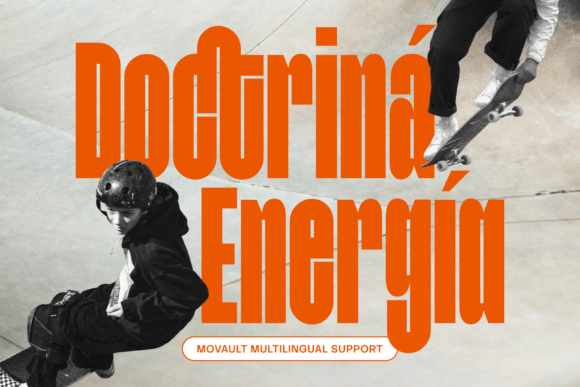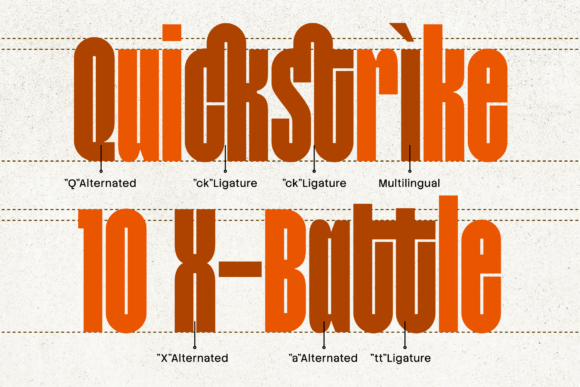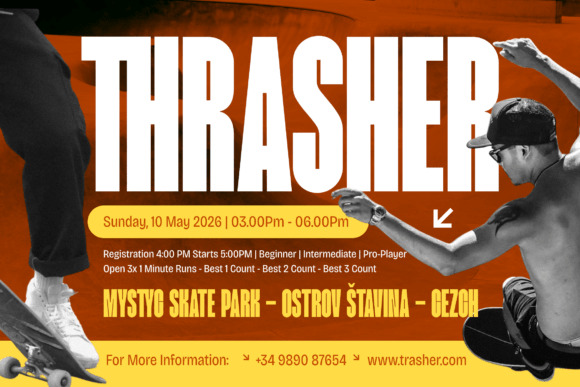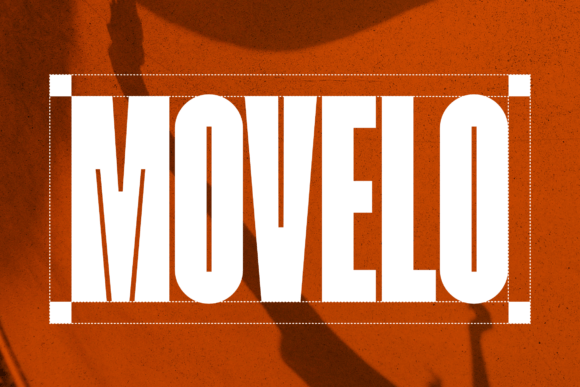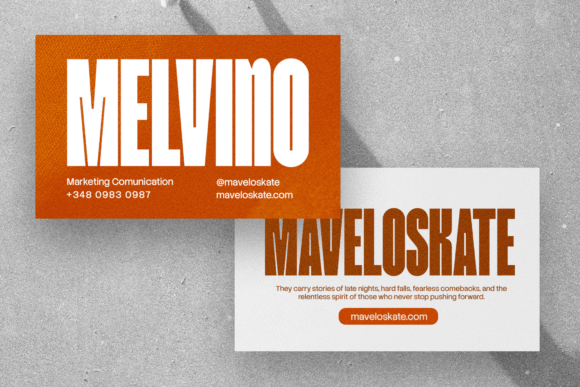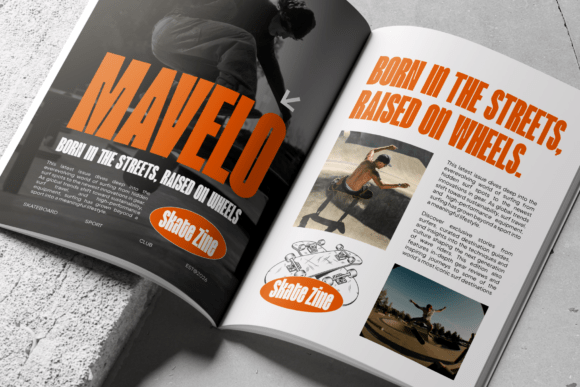
Introduction to Movault Font
Have you ever stared at a blank canvas, searching for the perfect font to bring your creative project to life? For designers, finding that elusive combination of style, functionality, and impact can be a daunting task. But what if I told you there’s a font that can elevate your design to new heights? Enter Movault Font – a bold super condensed sans serif font that’s about to revolutionize your creative process.
With its modern minimalist style and futuristic character, Movault Font is the perfect design resource for any project that demands a strong visual impact. From logos and wordmarks to posters and corporate branding, this font is a game-changer. And the best part? You can download it for free, giving you the freedom to experiment with a high-quality design tool that’s sure to make your creative project stand out. Whether you’re working on a digital interface or a bold promotional layout, Movault Font is the perfect choice for designers who crave a clean, modern look with a transparent background.
Key Features of Movault Font
- Includes a range of stylish and modern characters, ideal for designers looking to add a touch of sophistication to their work.
- Supports various languages, making it a versatile design resource for global creative projects.
- Unique characteristics include its sleek and modern aesthetic, with clean lines and elegant typography.
- Perfect for designers, artists, and creatives working on a wide range of projects, from logos and branding to digital art and graphics.
Honest Review: Movault Font
As a designer, I’m always on the lookout for high-quality design resources to elevate my creative projects. The Movault Font has caught my attention, and I’m excited to share my honest review.
- Unique and modern design aesthetic that’s perfect for contemporary projects
- Wide range of languages supported, making it a great resource for international designs
Overall, I’m impressed with the Movault Font’s design quality and versatility. While it has some limitations, it’s a great addition to any designer’s toolkit, especially for creative projects that require a modern and unique touch. If you’re looking for a free design resource that’s easy to use, the Movault Font is definitely worth checking out.
How to Use Movault Font
Tips for Getting the Most Out of the Movault Font
For a transparent background, use the Movault Font with a transparent PNG image or a solid-colored background. Experiment with different font sizes and styles to add visual interest to your designs.
Common Use Cases for the Movault Font
The Movault Font is perfect for creative projects, including:
- Social media graphics and advertisements
- Infographics and data visualizations
High-Quality Design with the Movault Font
The Movault Font is a high-quality design resource that can elevate your creative projects. With its modern and sleek design, it’s perfect for any project that requires a professional and stylish look.